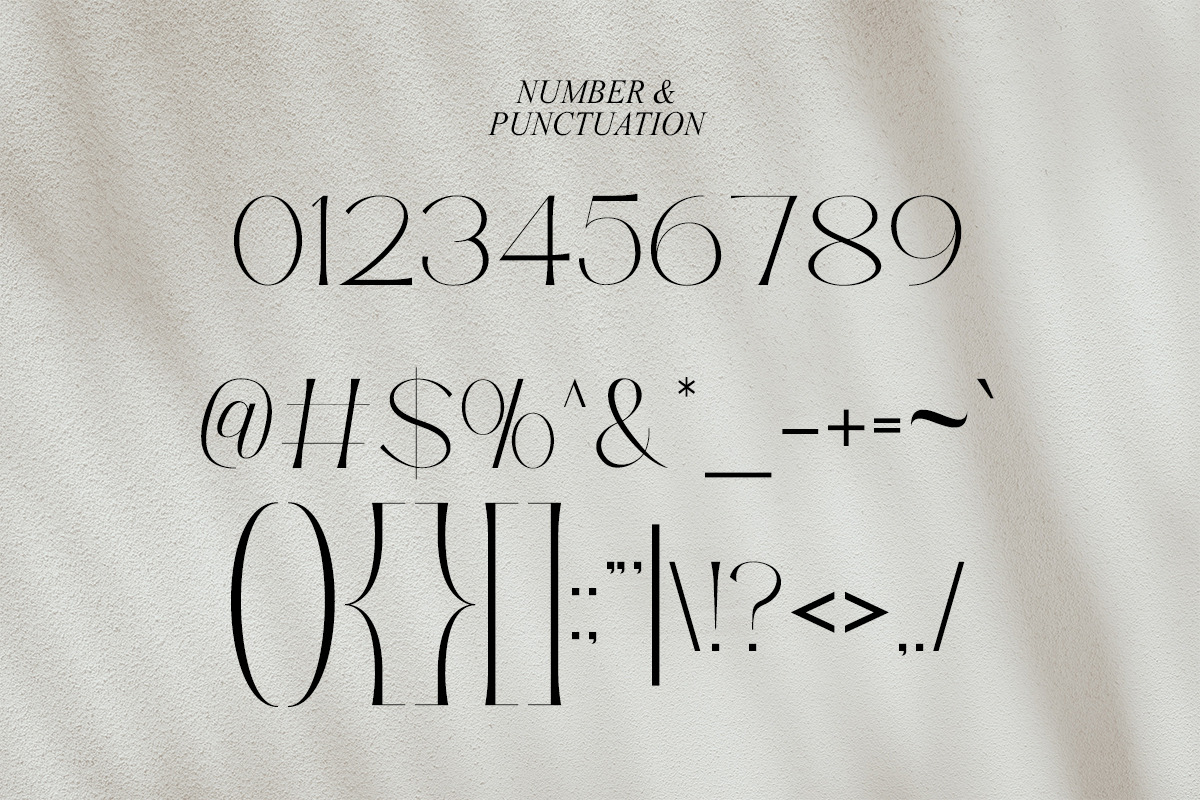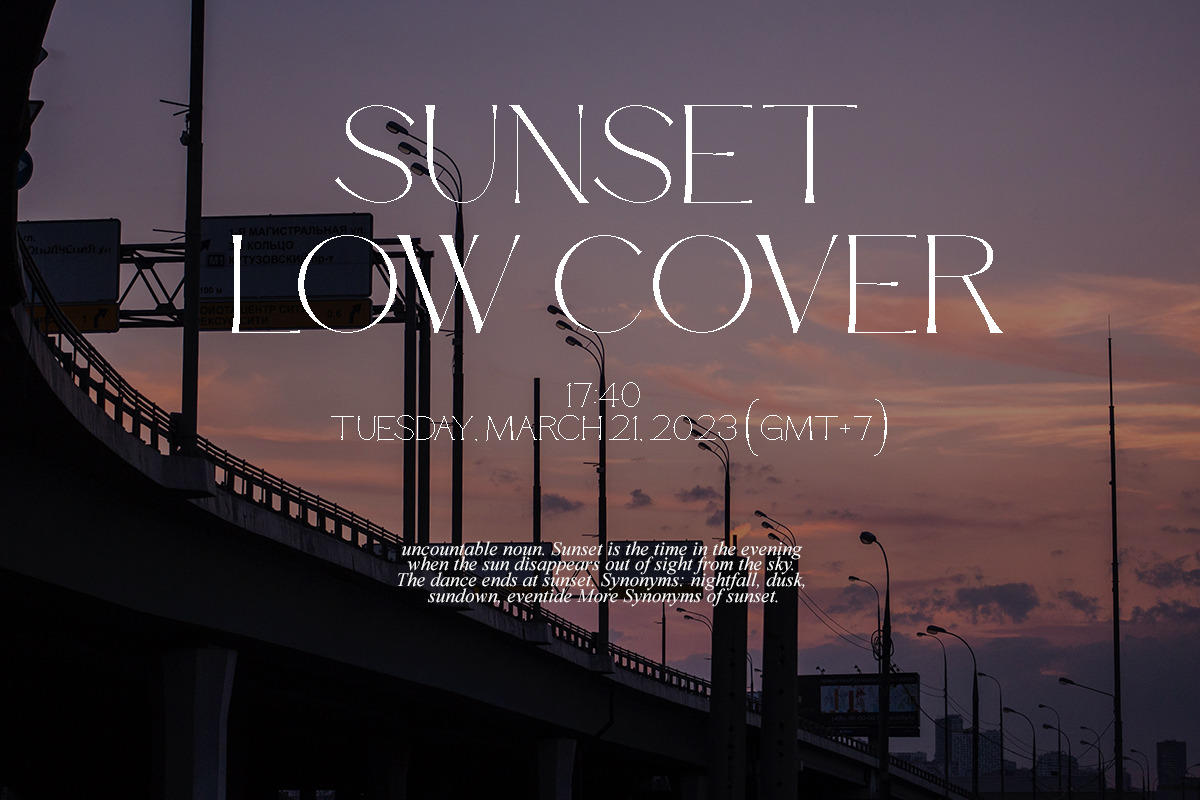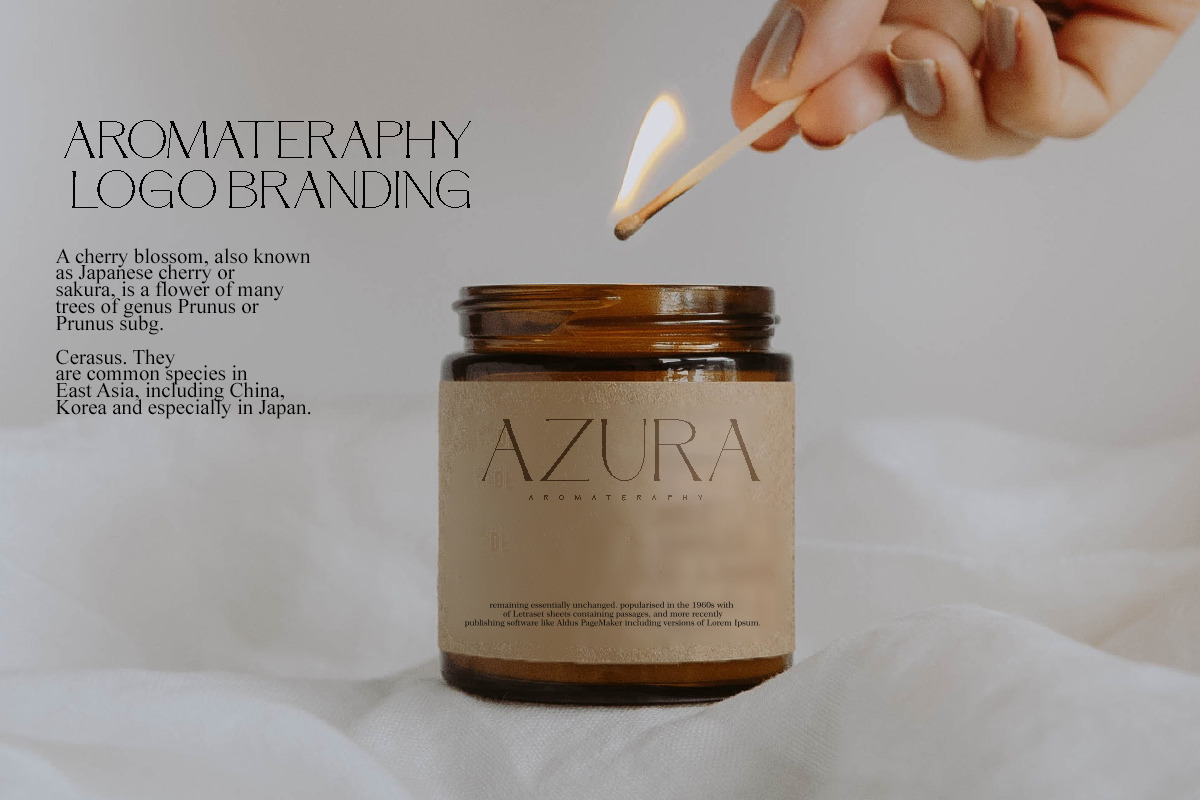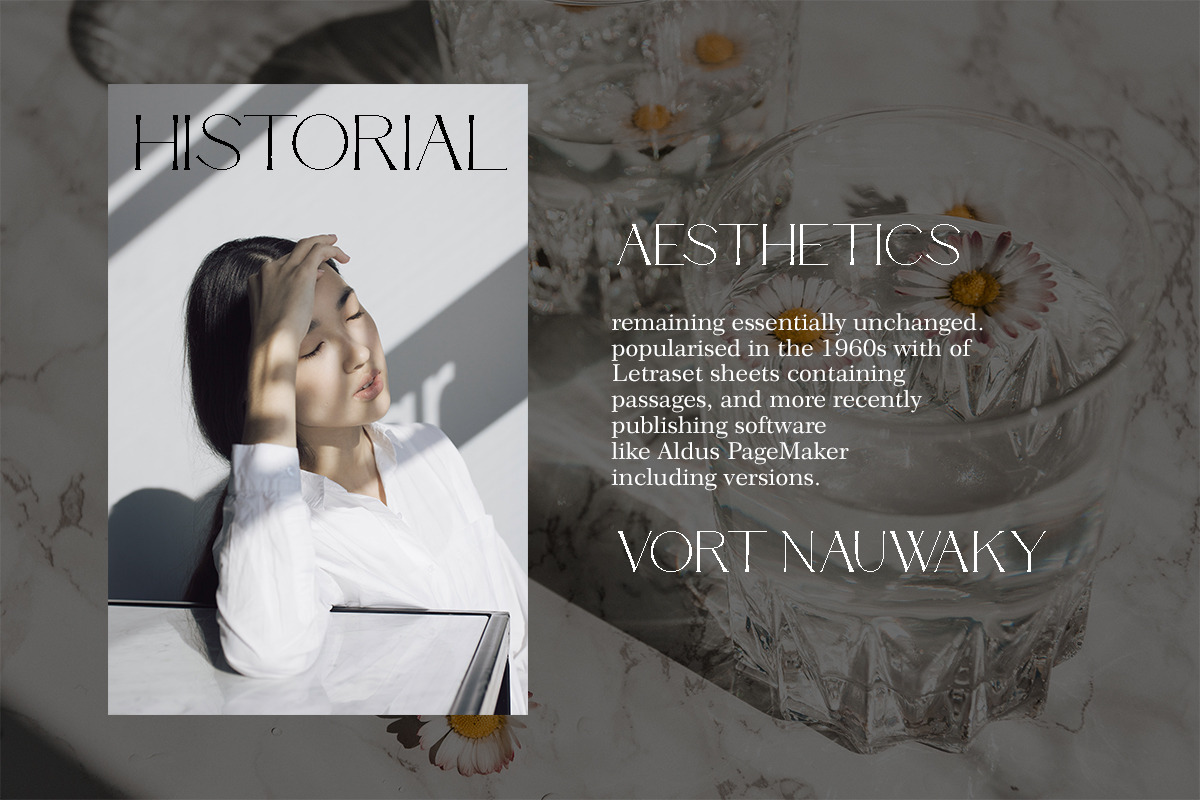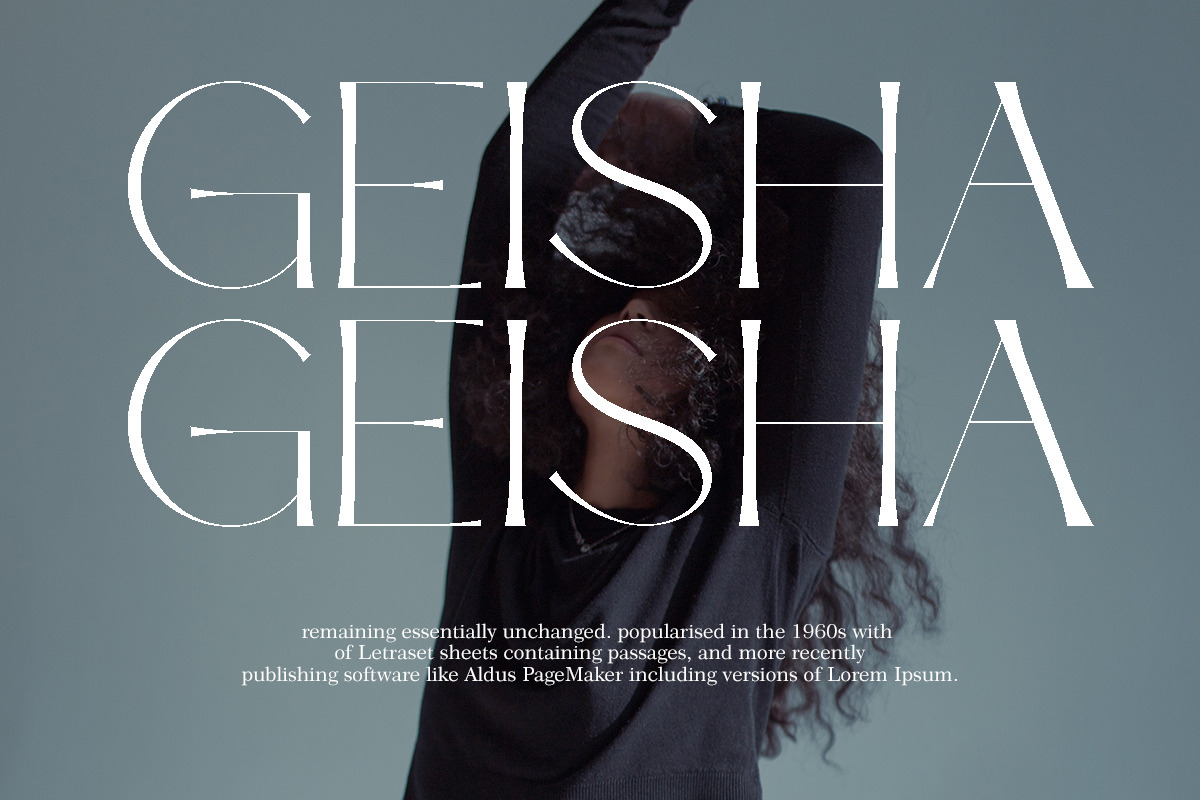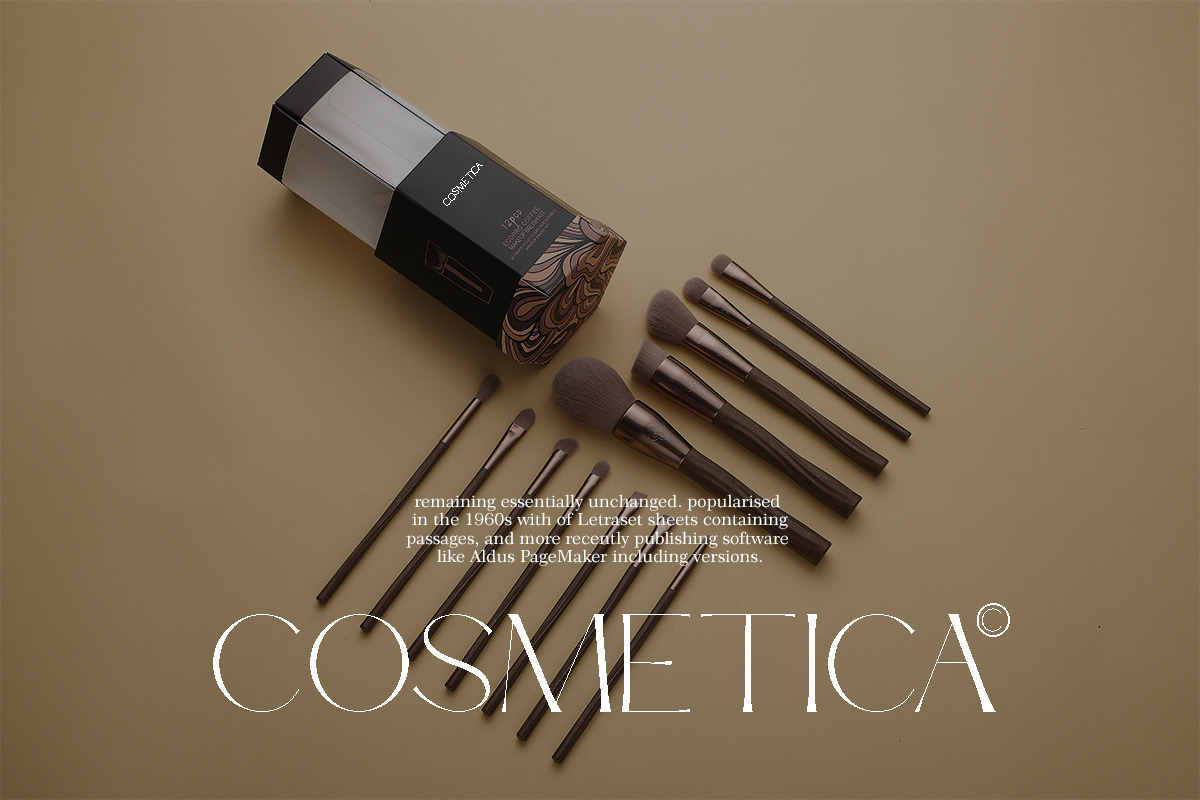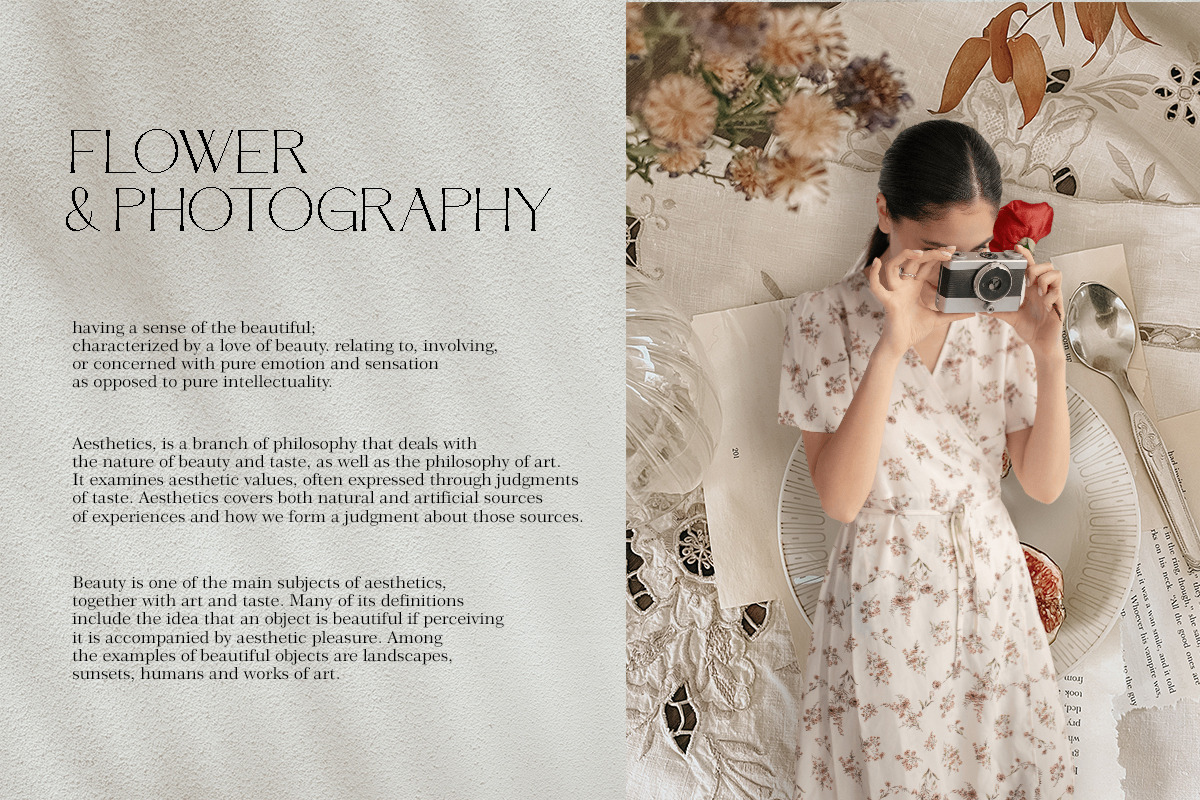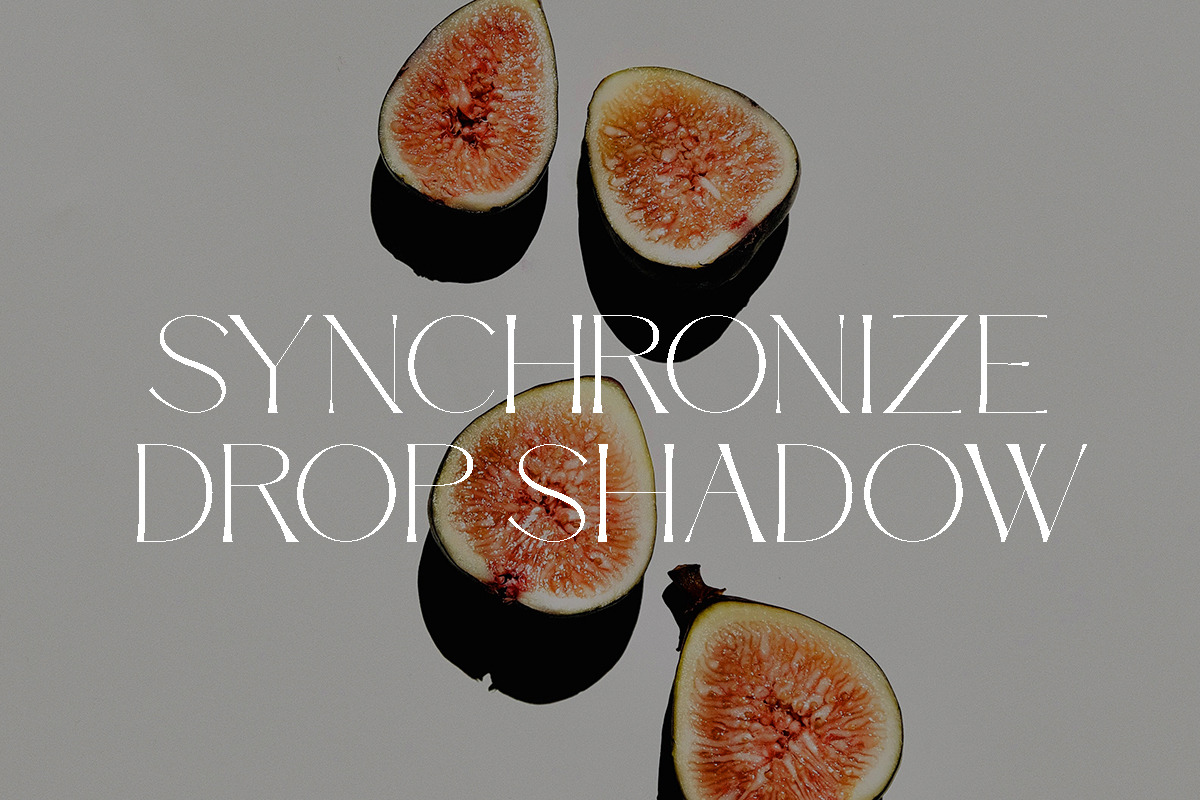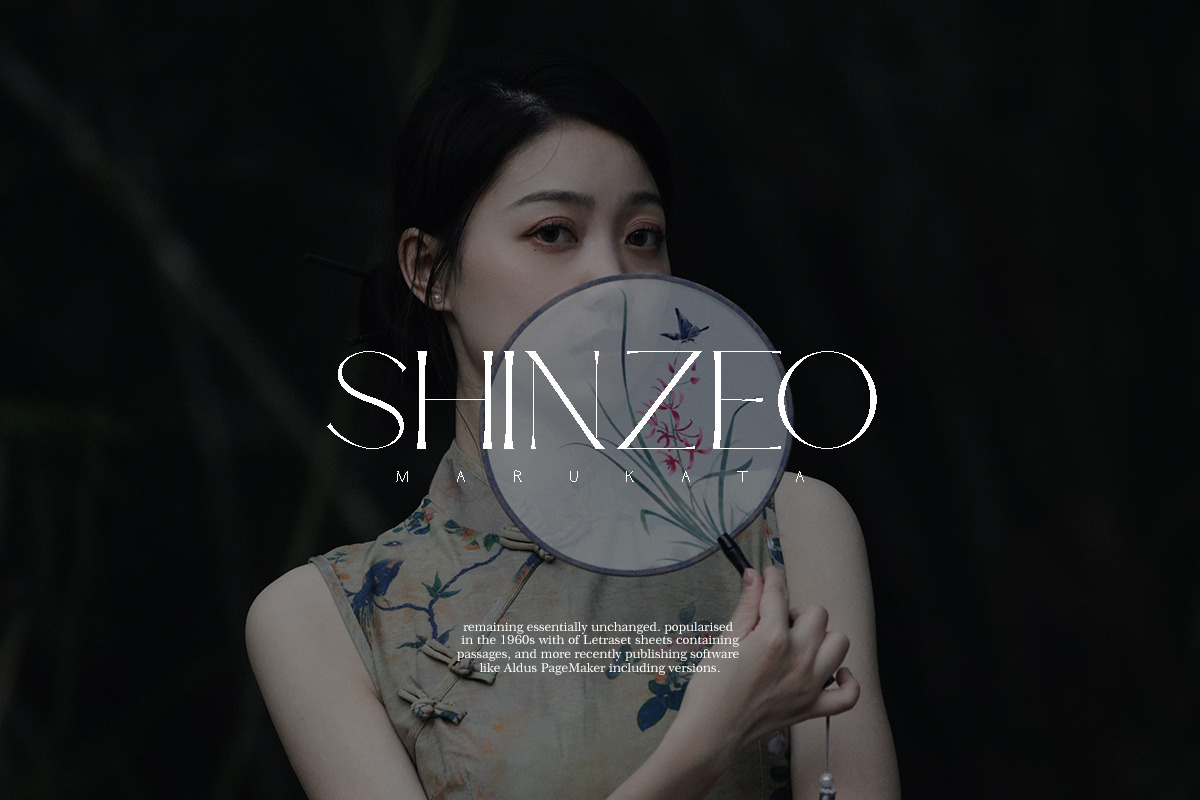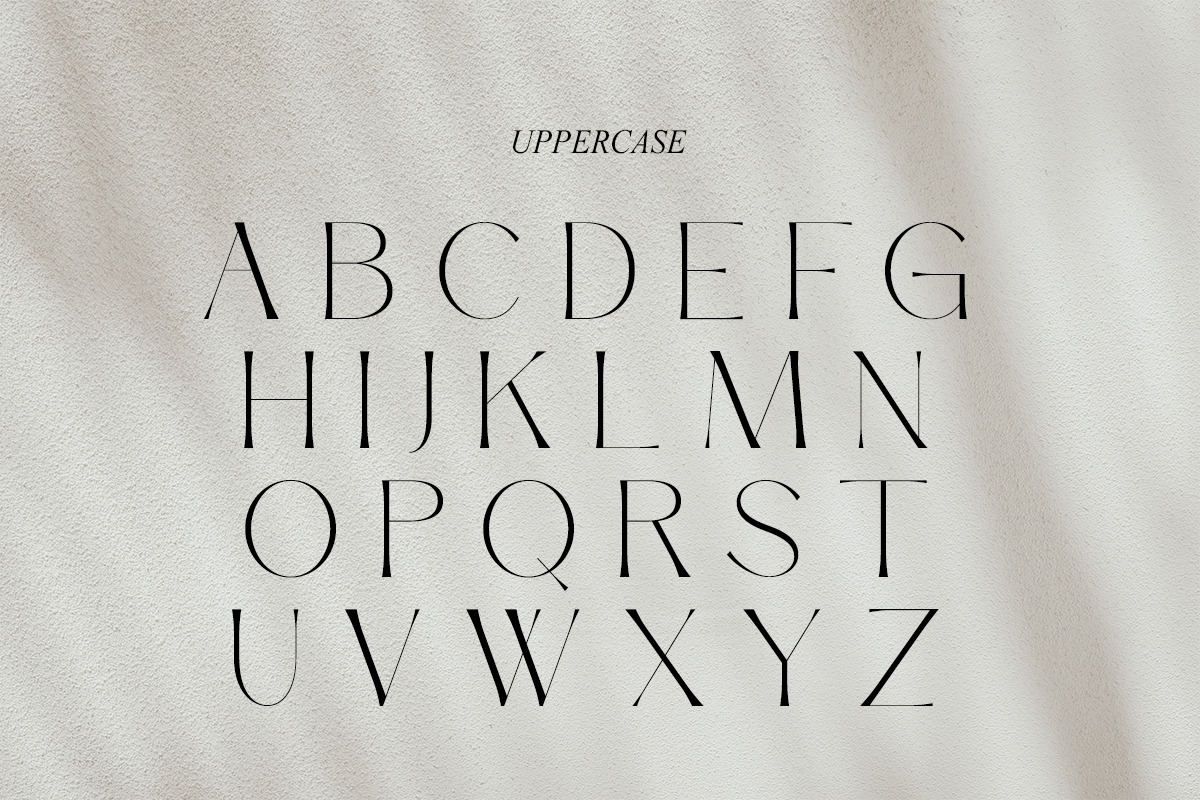
Margiola | Modern Serif
Margiola fonts includes uppercase letters, numerals, a large range of punctuation. Serif font with modern style. Created for poster, web design, branding, illustrations, badges and some other works.